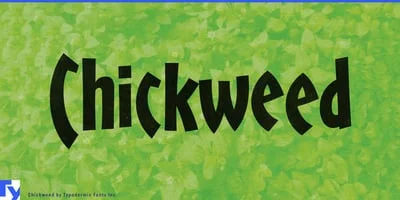
The Chickweed Font is a charming and often whimsical display typeface, frequently characterized by its handcrafted aesthetic, playful irregularities, and a distinct rustic or organic feel. Imagine its unique characters gracing the labels of artisanal food products, adding a warm, inviting touch to boutique cafe branding, or creating engaging titles for children's storybooks and creative craft projects. Its slightly irregular forms, often with a subtle bounce or unique strokes, make it an excellent choice for unique greeting cards, delightful social media graphics, farmers' market signage, and any design where a genuine, homespun, and approachable feel is desired. Whether you're aiming for a warm, natural look or a distinctly personal touch, Chickweed Font delivers with its unmistakable character, ensuring your visuals feel both authentic and appealing.
What makes Chickweed Font so exciting is its ability to infuse designs with immediate personality and a sense of genuine human connection, reminiscent of handmade goods and natural charm. In a digital world often dominated by sleek, mass-produced designs, this font offers a refreshing dive into a more tactile, heartfelt aesthetic. It evokes a feeling of sincerity and creativity, making your designs feel more approachable and memorable. It’s more than just a typeface; it’s a design element that can instantly set a warm, inviting, and authentic tone for a project, making content feel more relatable and trustworthy. Designers will find it an invaluable asset for creating visuals that truly resonate with an audience seeking originality and a personal touch.
The Chickweed Font family is typically structured to offer a range of styles that enhance its handcrafted and expressive appeal. Beyond the primary Chickweed Regular typeface (which might feature a charming, slightly imperfect hand-drawn quality), you might find companion styles such as a more impactful Chickweed Bold for stronger emphasis, or perhaps Chickweed Italic for a casual slant. Given its artisanal nature, the family may also include unique ligatures, alternate characters, or stylistic sets that allow for even greater customization, mimicking the beautiful irregularities and variations found in true hand-lettering or a rustic print. These diverse family members provide designers with the flexibility to establish a clear typographic hierarchy and maintain a consistent, charmingly authentic aesthetic across all elements of their project, from prominent titles to smaller, illustrative texts.